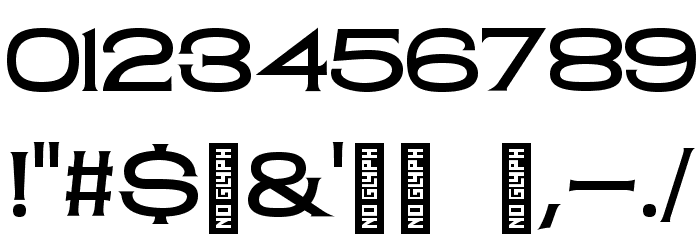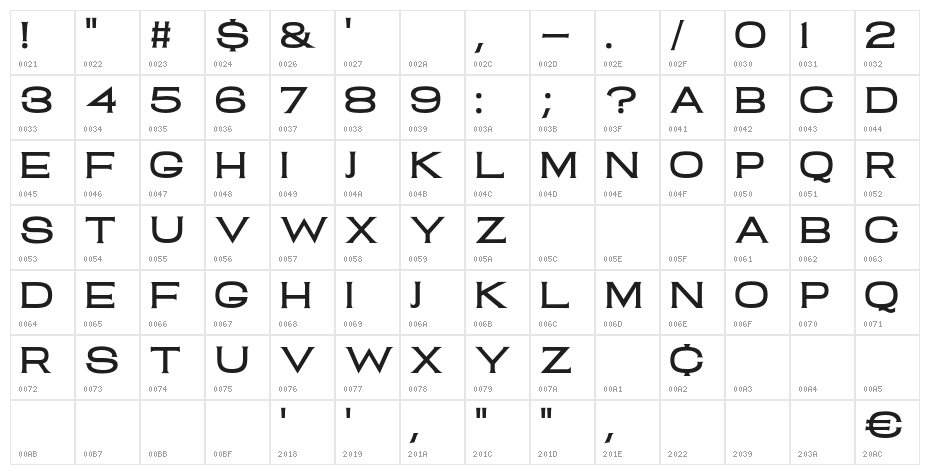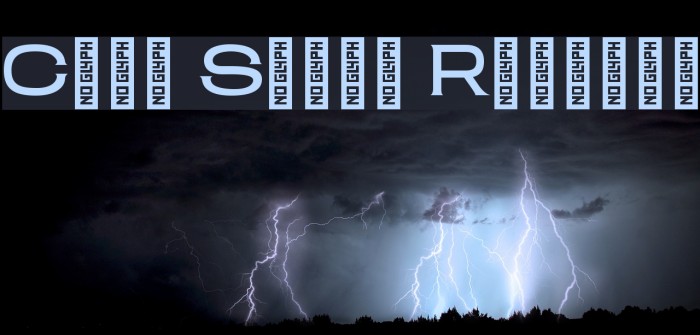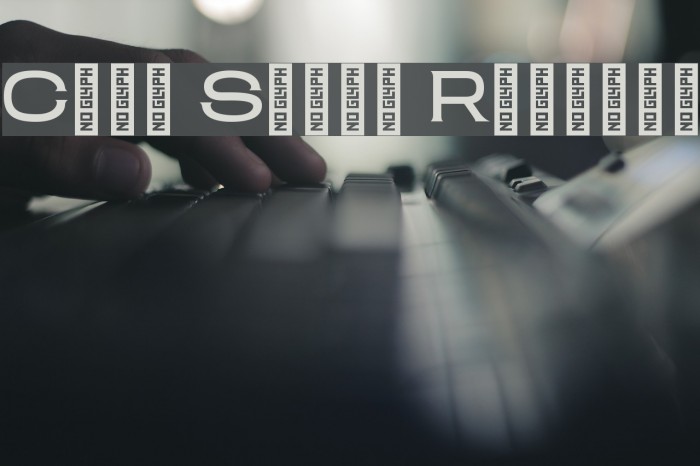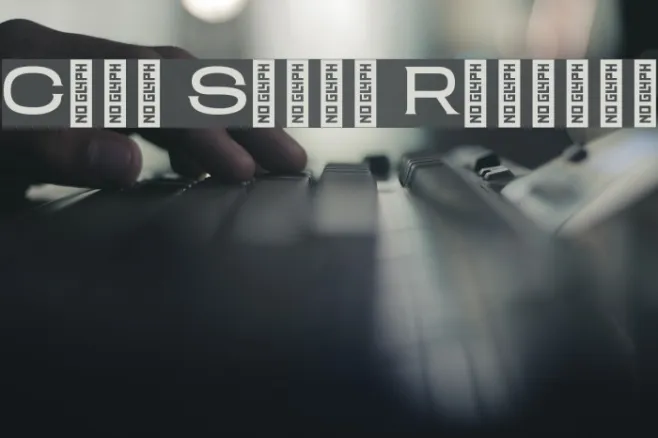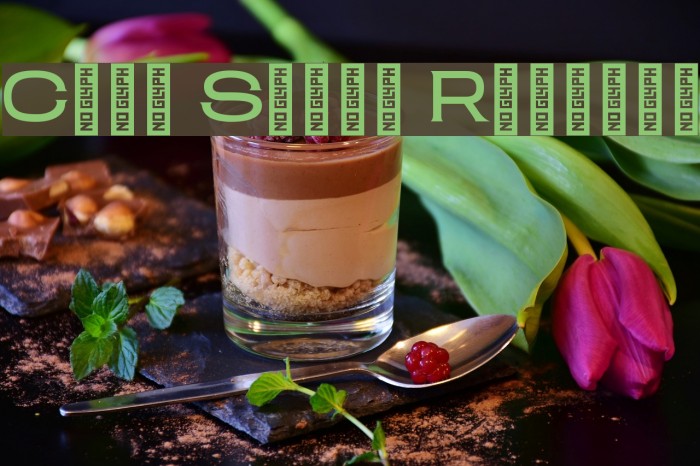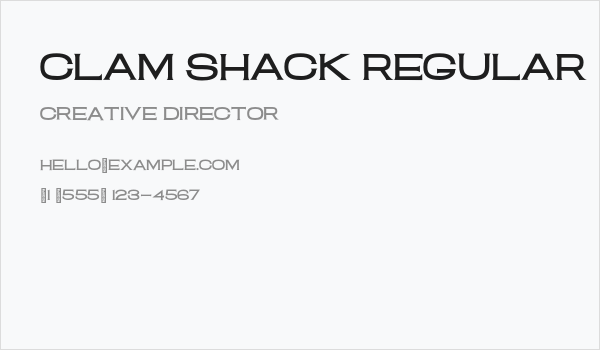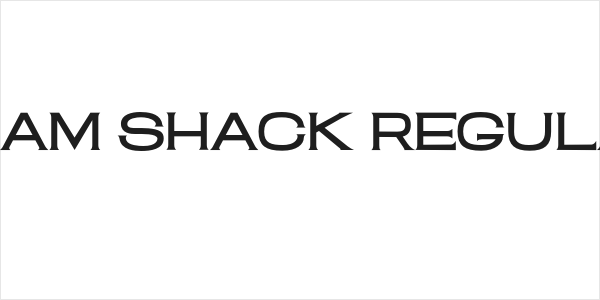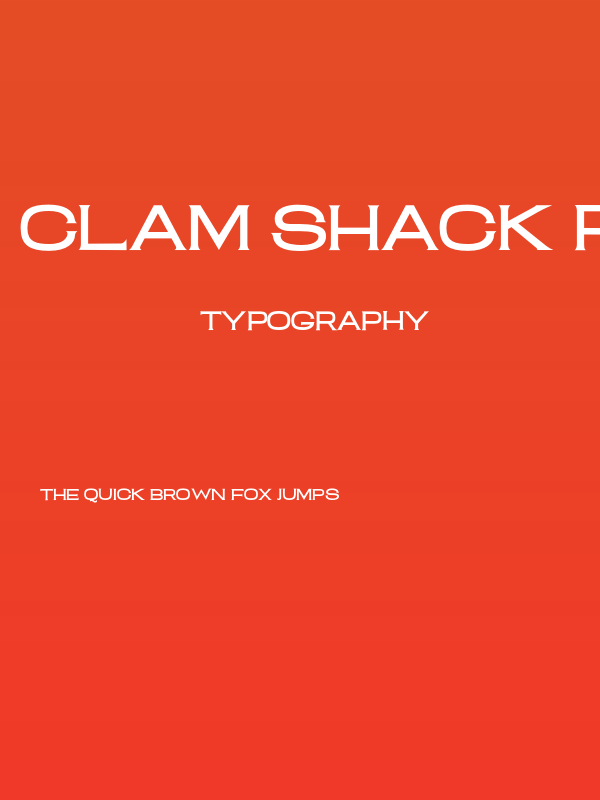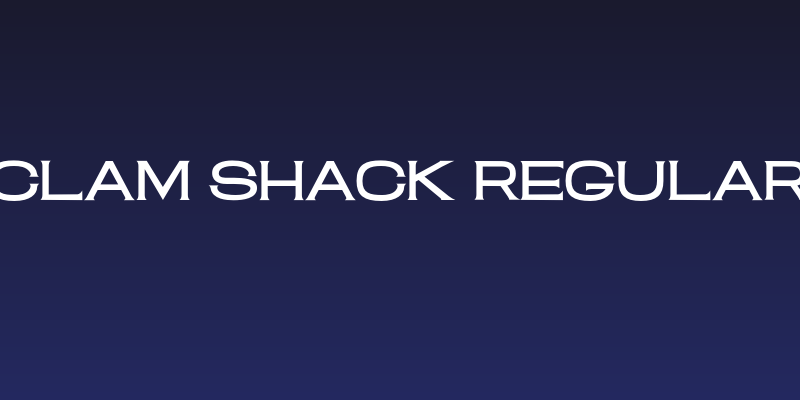
Clam Shack Regular Font
Clam Shack Regular Description
This font features a modern and sleek design with clean lines and a geometric structure. The uppercase letters are bold and assertive, with a uniform stroke width that gives them a strong presence. The numerals are equally bold, maintaining the geometric style with rounded edges that add a touch of softness. The special characters are designed to complement the overall style, ensuring consistency across all glyphs. This font lacks lowercase letters, focusing on a minimalist and impactful aesthetic.
| Use Case | Headlines, Logos, Signage |
| Proposed Projects | Ideal for branding, headlines, and signage where a strong, modern look is desired. |